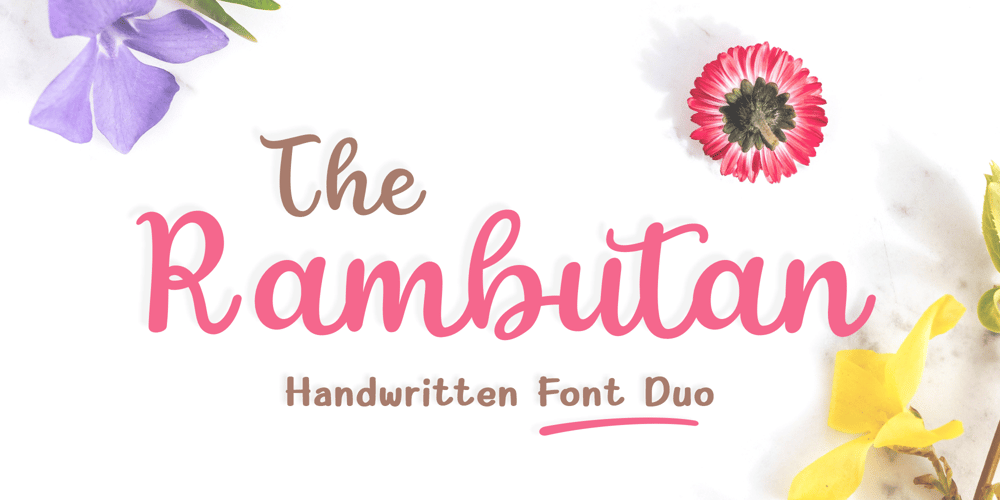
The Rambutan Font Family was designed by Alif Nuryasin and published by Alifinart Studio. The Rambutan contains 5 styles and family package options. The Rambutan is a unique font with a subtle and bold style. This font is very well used in a variety of designs such as menus, catalogs, invitation cards, wedding, blog, travel photographers and others.Alifinart Studioalifinart@gmail.com